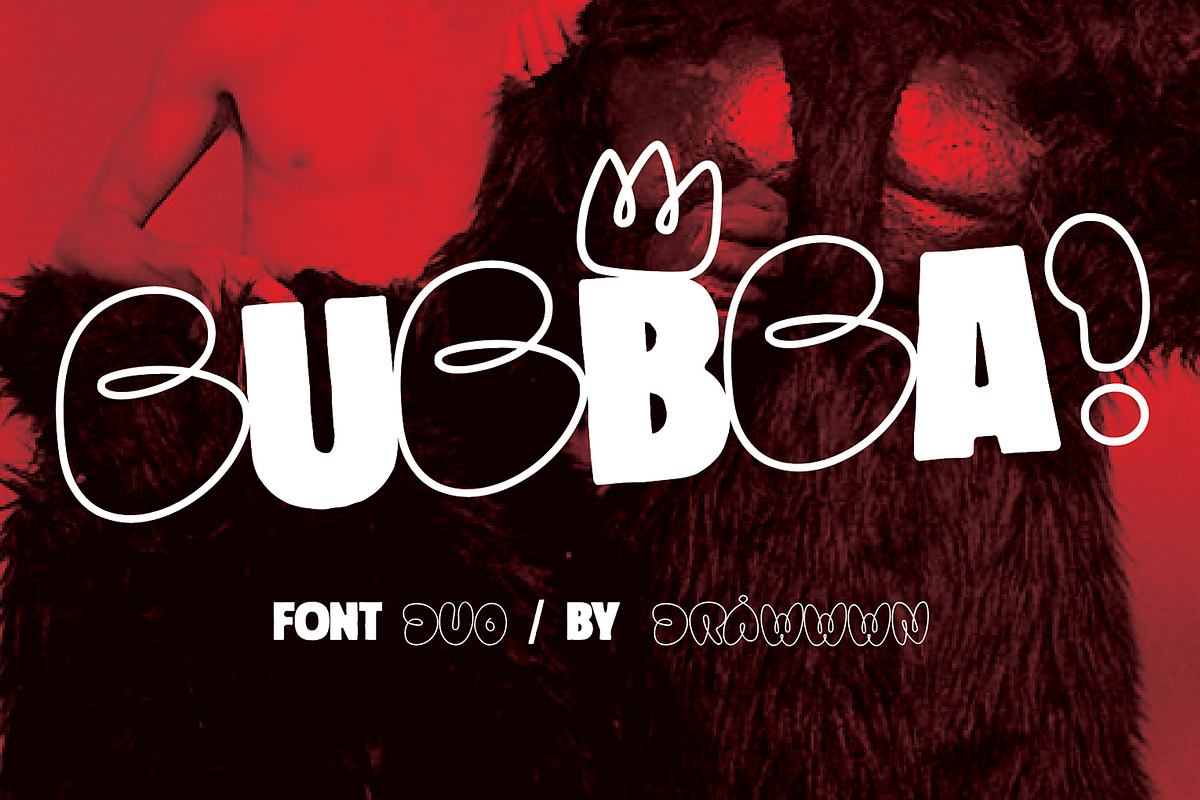
Bubbba & Bubbbo - Font Duo Free Download is a charming and playful typeface pair that brings balance and versatility to your design toolkit. Featuring a bubbly script (Bubbba) and a fun, rounded sans-serif (Bubbbo), this font duo is perfect for branding, children’s designs, social media posts, packaging, and cheerful quotes. The two fonts work beautifully together or can be used individually to suit a wide range of creative needs.
With its hand-drawn character and friendly personality, Bubbba & Bubbbo creates a welcoming and joyful visual experience. The script adds a personal touch, while the sans keeps things clean and modern.